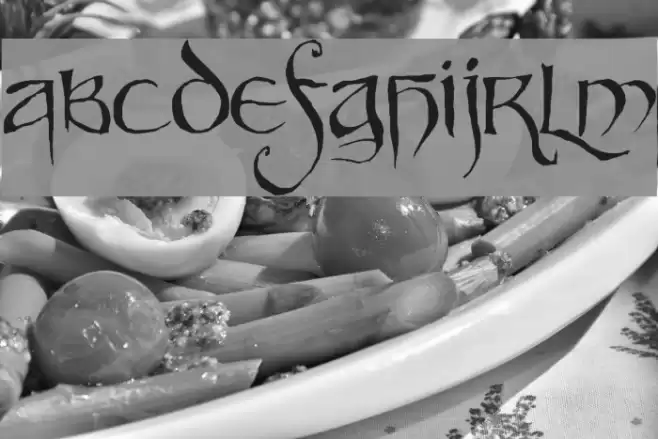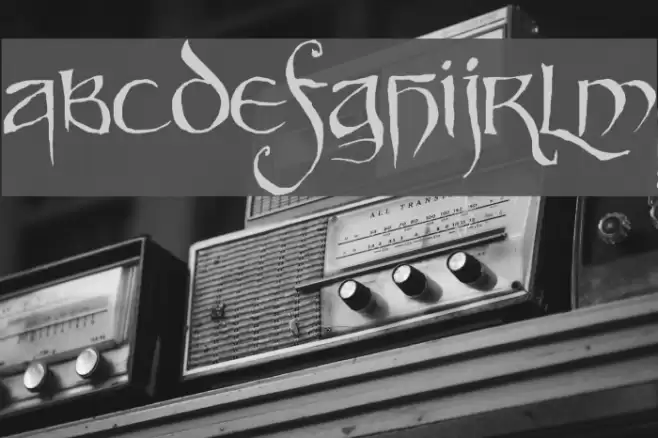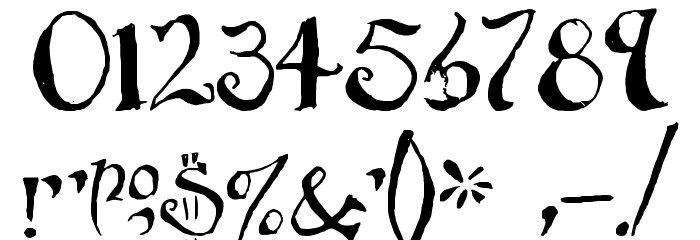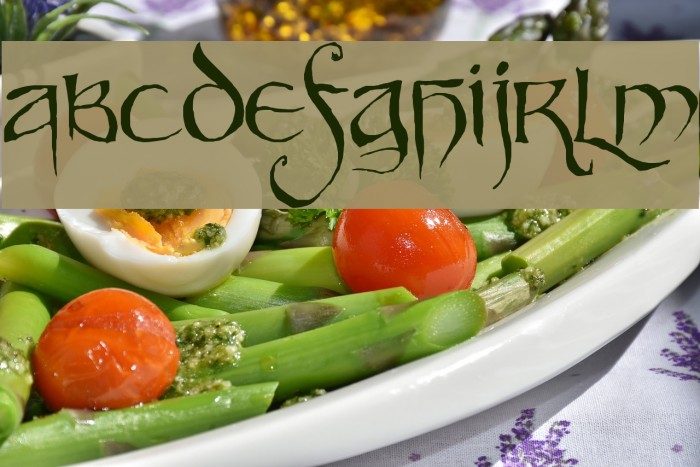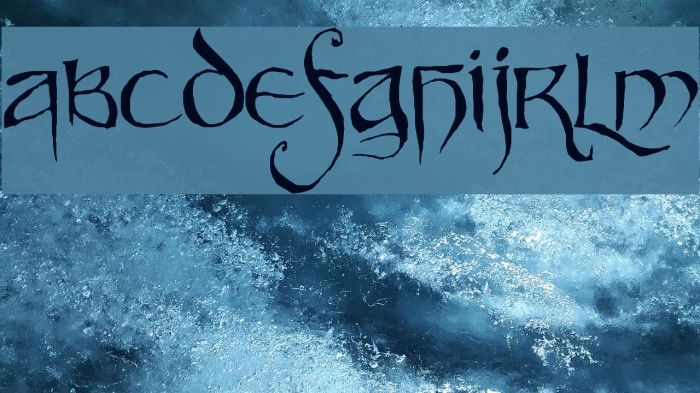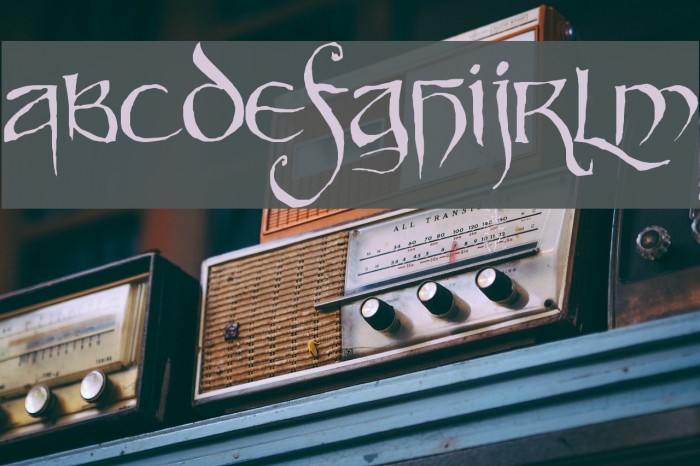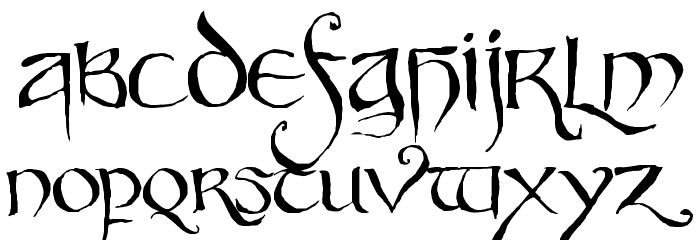
Party Business Font
Party Business Description
This font exhibits a distinct Gothic or medieval style, characterized by its ornate and intricate letterforms. The uppercase letters are bold and dramatic, with sharp angles and flourishes that give them a regal appearance. The lowercase letters maintain a consistent style, with elongated strokes and decorative elements that enhance their visual appeal. The numerals are equally stylized, featuring unique curves and lines that align with the overall theme. Special characters are creatively designed, adding to the font's decorative nature. This font's high contrast in stroke thickness and artistic flair make it suitable for projects that require a historical or fantasy aesthetic.
A decorative Gothic-style font with ornate, high-contrast letterforms from Gothic fonts.
- Proposed Projects: Ideal for fantasy-themed projects, historical event invitations, or decorative posters.